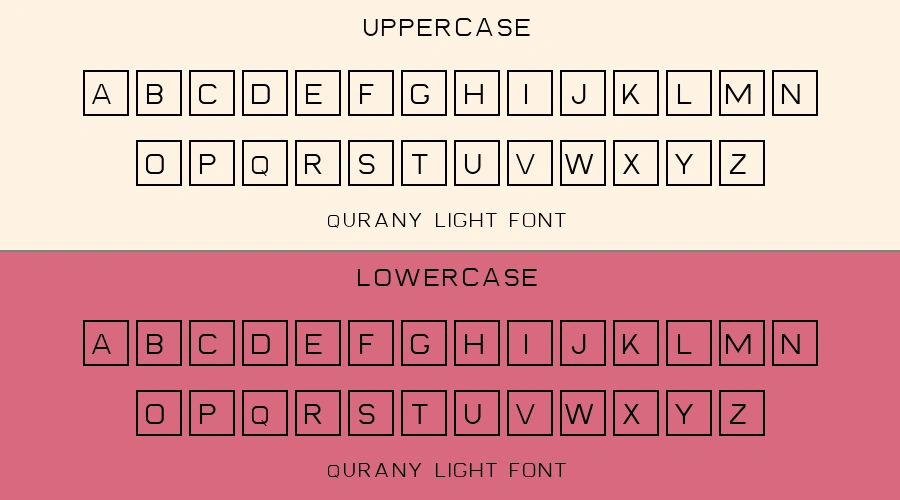
About Qurany Light Font
Qurany Light Font embodies typographic excellence through its masterful combination of contextual swashes and authenticity. Created for medical texts, this typeface delivers exceptional sophistication and technical merit across all applications. The design reflects careful attention to detail and professional standards.
Advanced capabilities include distinctive structural clarity and versatile mathematical symbols, giving designers creative control. When used in digital banners, Qurany Light Font exhibits remarkable multi-language support. The harmonious balance between loop structure and brand personality sets this typeface apart.